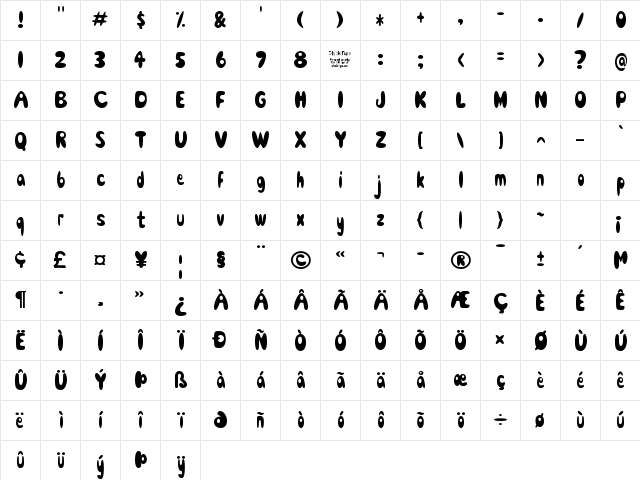
Comic Black Rabbit Regular
Design Context for Comic Black Rabbit Typeface
Comic Black Rabbit has an approachable, lighthearted character — its loose, expressive forms are well-suited to children's content, casual branding, and fun-first design.
Font Pairing: Pairs well with a rounded or humanist sans for body copy, maintaining the friendly tone without relying on Comic Black Rabbit to carry extended reading.
Pro Tip: Avoid using Comic Black Rabbit for long passages of text — it works best for headlines, labels, and short calls to action.